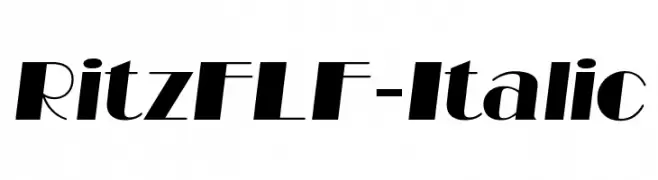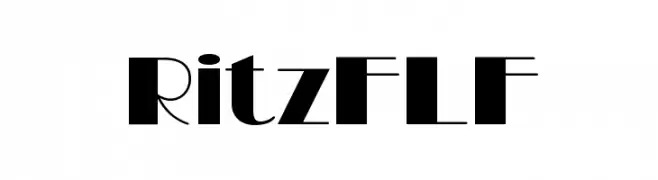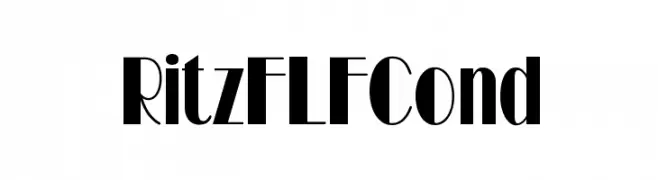
A bold, high-contrast font with geometric flair and modern elegance.
A bold, italic font with sharp angles and dynamic movement.
A bold, condensed font with a modern and geometric style.
A bold, clean sans-serif font with a modern, geometric style.
Bold, italic sans-serif font with a modern, geometric style.
A bold, condensed sans-serif font with a modern and clean appearance.
Bold, condensed sans-serif font with an italic slant, offering a modern and dynamic appearance.
A clean and modern sans-serif font with balanced proportions and high legibility.
A modern, italic sans-serif font with clean lines and excellent readability.